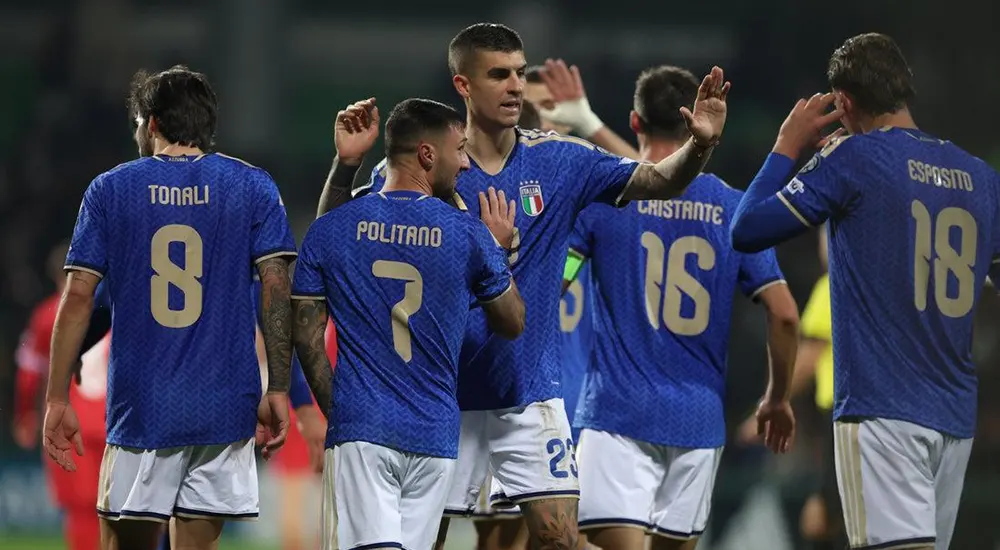
Design Like the Champions: Introducing the Official Italy 2026 World Cup Font
The roar of the crowd, the iconic blue jersey, the pride of a nation — capture it all in your next design project with the official Italy 2026 World Cup Font. This isn’t just any typeface; it’s the digital embodiment of the Azzurri’s spirit, made for fans, designers, and creators who demand authenticity.
Italy 2026 World Cup kit font (Tonali, Politano jerseys) — official typography for fan designs
Italy 2026 World Cup font in use on Azzurri players’ jerseys (Tonali, Politano, etc.).
This comprehensive font pack gives you everything you need to bring the official look and feel of the Italian national team (FIGC) into your work. Whether you’re creating custom fan jerseys, designing social media graphics for the tournament, or producing support banners, our package delivers professional-grade results.
Italy 2026 World Cup font showing the full alphabet and number set in gold on a blue background.
Crafted for the global stage, this font is built with precision:
• Broad Character Support: Covers extensive Latin characters and symbols, ensuring compatibility with multiple languages for international fan projects.
• Optimized for Sport: The design balances clarity and dynamism, making player names and numbers highly legible on jerseys and screens alike.